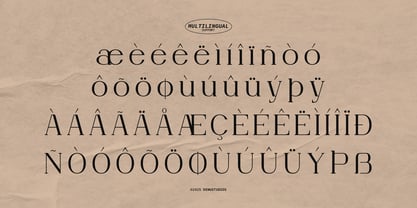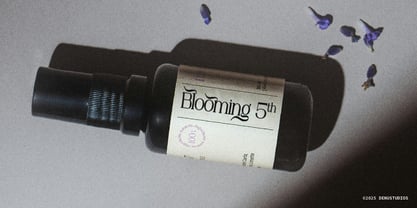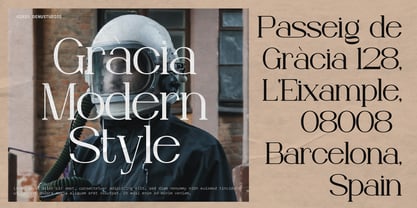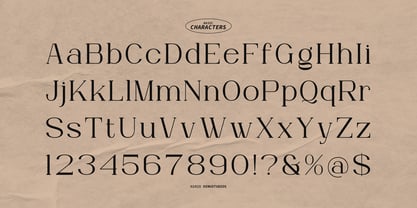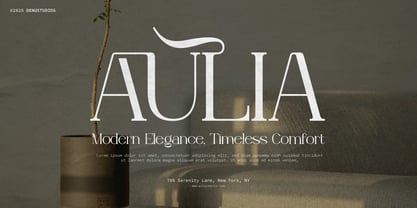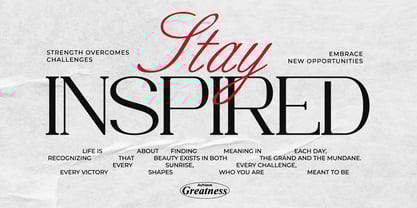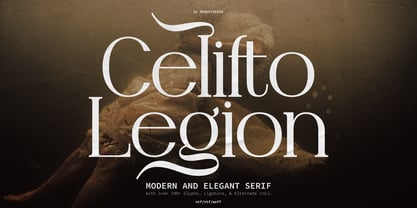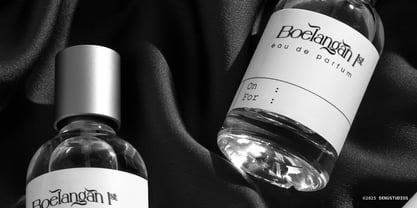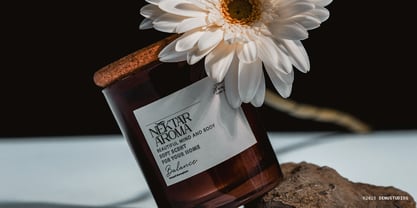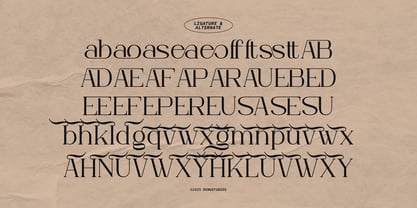
Celifto Legion
by Denustudio
The Celifto Legion Font Family was designed by Dede Nugraha and published by Denustudio. Celifto Legion contains 2 styles and family package options. More about this family
Celifto Legion | Modern And Elegant Serif, from Denustudios, suitable for any projects such as: logos, branding projects, homeware designs, product packaging, mugs, quotes, posters, shopping bags, t-shirts, book covers, name card, invitation cards, greeting cards, label, photography, watermark, special events, and all your other lovely projects that need Modern And Elegant Serif a taste.
• Regular and Italic
• Standard glyphs
• Alternate and Ligature
• Fonts include multilingual support